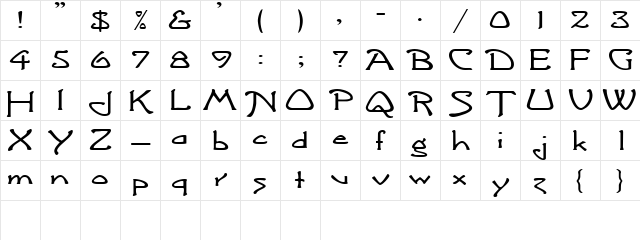
ArgonautExtended Regular
Complete ArgonautExtended Regular glyph index. Displaying only characters natively supported by ArgonautExtended Regular font.
Design Context for ArgonautExtended
ArgonautExtended is a composed and adaptable typeface that performs quietly and consistently across a wide range of design contexts.
Pro Tip: Use ArgonautExtended in both headline and body roles to test its range before committing to a single application.